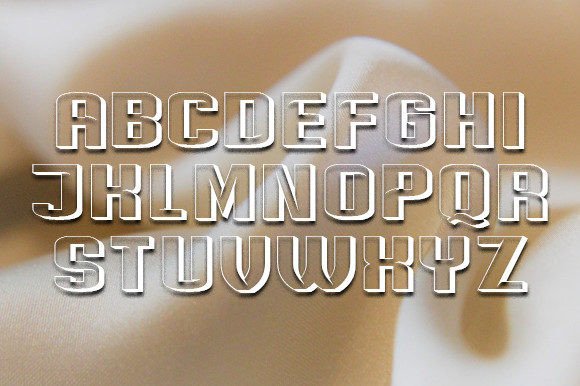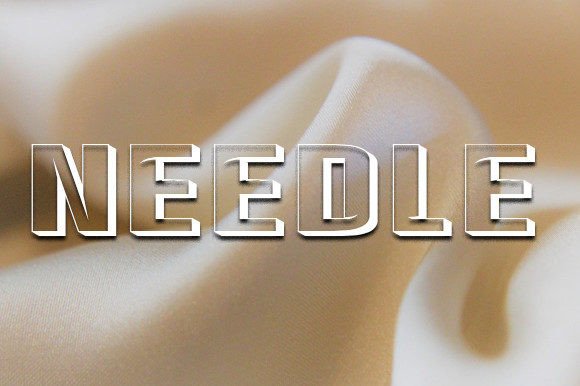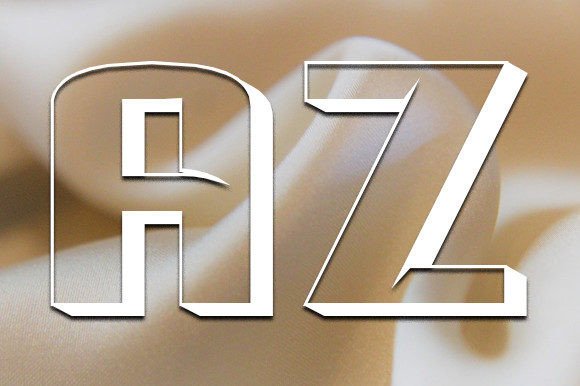
The Ultimate Font for Creatives: A Deep Dive into Fiber Font
I’ll never forget the time I was working on a craft project, pouring my heart and soul into creating the perfect greeting card. The design was flawless, but something was off – the font just didn’t feel right. It was too formal, too bland, and completely lacked personality. That’s when I stumbled upon Fiber Font, and let me tell you, it was love at first sight! 💕
Fiber is a transparent, easy-to-read display font that conveys impeccable friendliness. Whether you’re using it for crafts, digital design, presentations, or making greeting cards, this font has the potential to become your favorite go-to font, no matter the occasion!
An Honest Review of Fiber Font
What I Love About Fiber Font ✨
- ✅ Easy to read: Fiber Font is perfect for digital and print designs, with a clear and concise aesthetic that’s hard to resist.
- ✨ Friendly vibe: This font exudes warmth and approachability, making it perfect for projects that require a personal touch.
- ✅ Highly versatile: From crafts to presentations, Fiber Font adapts seamlessly to any design style or format.
- 💫 OpenType features: Fiber Font comes with a range of OpenType features, including glyphs and stylistic alternates, giving you plenty of creative freedom.
While Fiber Font is an amazing addition to any design project, there are a few things to keep in mind:
- 🤔 Not suitable for body text: While Fiber Font is easy to read, it’s best used for headings or titles – it might get a bit too showy for longer blocks of text.
The Backstory Behind Fiber Font
Fiber Font was designed with one goal in mind: to create a font that’s both beautiful and accessible. The designer, inspired by the world of crafts and DIY projects, set out to create a font that’s friendly, approachable, and easy to read. With its transparent, rounded aesthetic, Fiber Font is the perfect reflection of this vision.
Q: What makes Fiber Font so special?
A: Fiber Font’s unique blend of friendliness, readability, and versatility makes it a standout in the world of typography.
Q: Is Fiber Font suitable for body text?
A: While Fiber Font is easy to read, it’s best used for headings or titles – it might get a bit too showy for longer blocks of text.